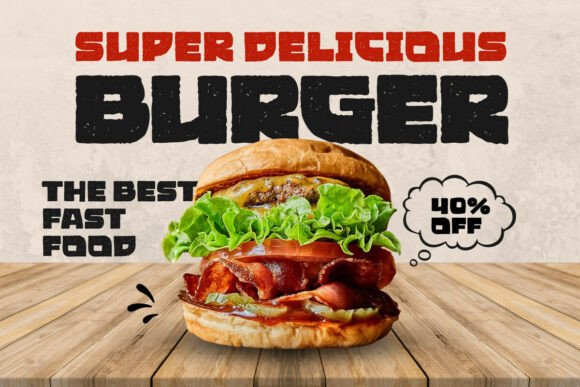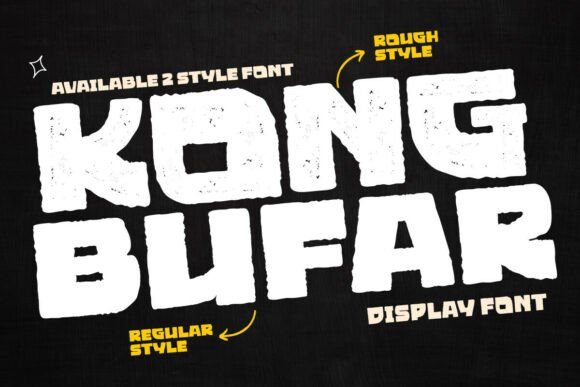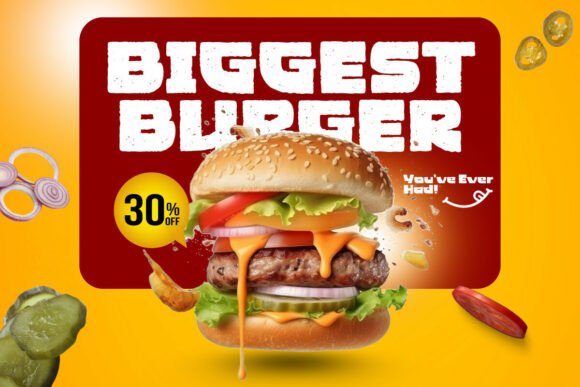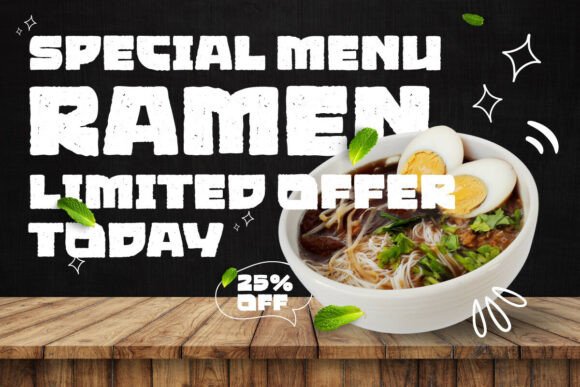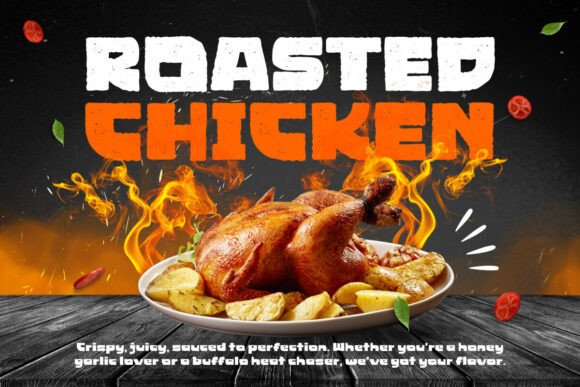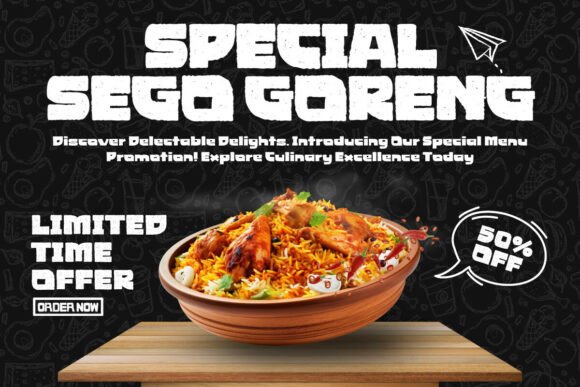
Introduction to Kong Bufar Regular Font
Kong Bufar is a bold display font designed to infuse flavor and personality into every food-related project.
With its chunky letterforms and subtly rough texture, it captures the energy and excitement of culinary experiencesโjust like that first bite of your favorite dish Strong yet playful, this typeface is perfect for food brands that want to stand out with confidence and charm.
Key Features of Kong Bufar Regular Font